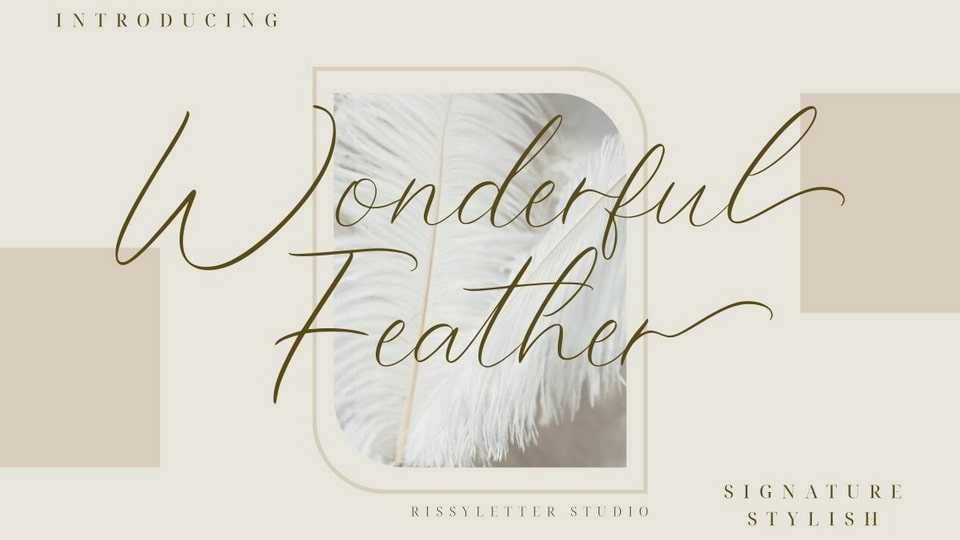
Download Wonderful Feather font, an elegant and stylish typeface, made from natural handwriting. Wonderful Feather is carefully designed to get maximum results and is perfect for pairing with serif and sans serif fonts.
Designer: Rissyletter Studio